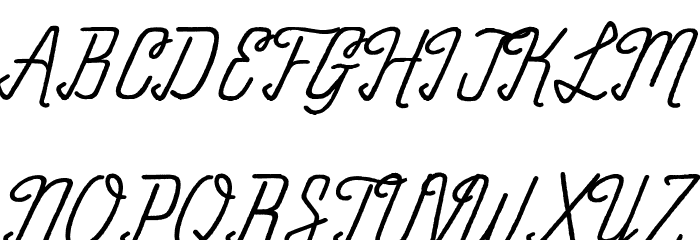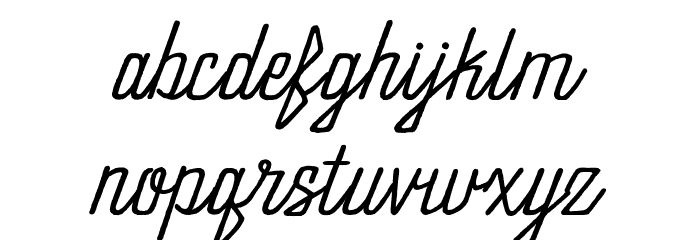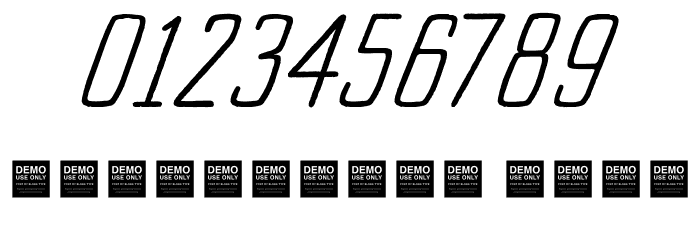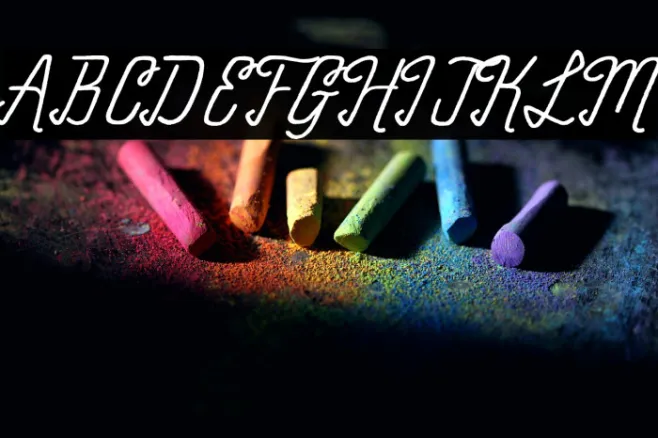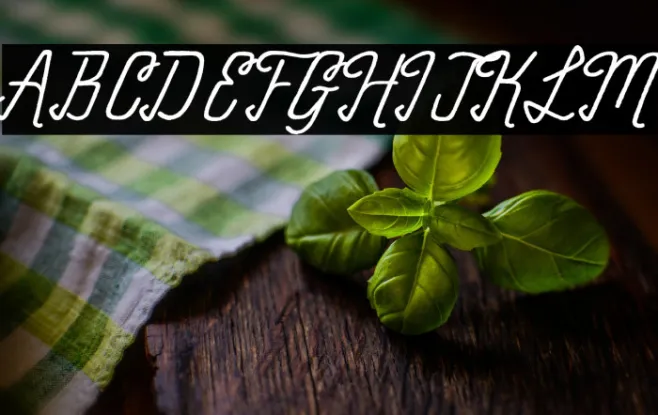
Grease Monkey Font
This font features a dynamic and fluid script style, characterized by its elegant, flowing lines and cursive letterforms. The uppercase letters are bold and slightly slanted, giving a sense of movement and energy. The lowercase letters maintain a consistent rhythm, with smooth connections between strokes. Numbers and special characters are designed to match the overall aesthetic, ensuring a cohesive look across all text. The font's design is reminiscent of vintage signage, making it ideal for projects that require a touch of nostalgia and sophistication.
A dynamic script font with elegant, flowing lines and a vintage feel.
- Proposed Projects: Ideal for branding, invitations, signage, and any project that requires a touch of elegance and nostalgia.
- Overall Style: Vintage
- Use Case: Logos, Invitations, Signage